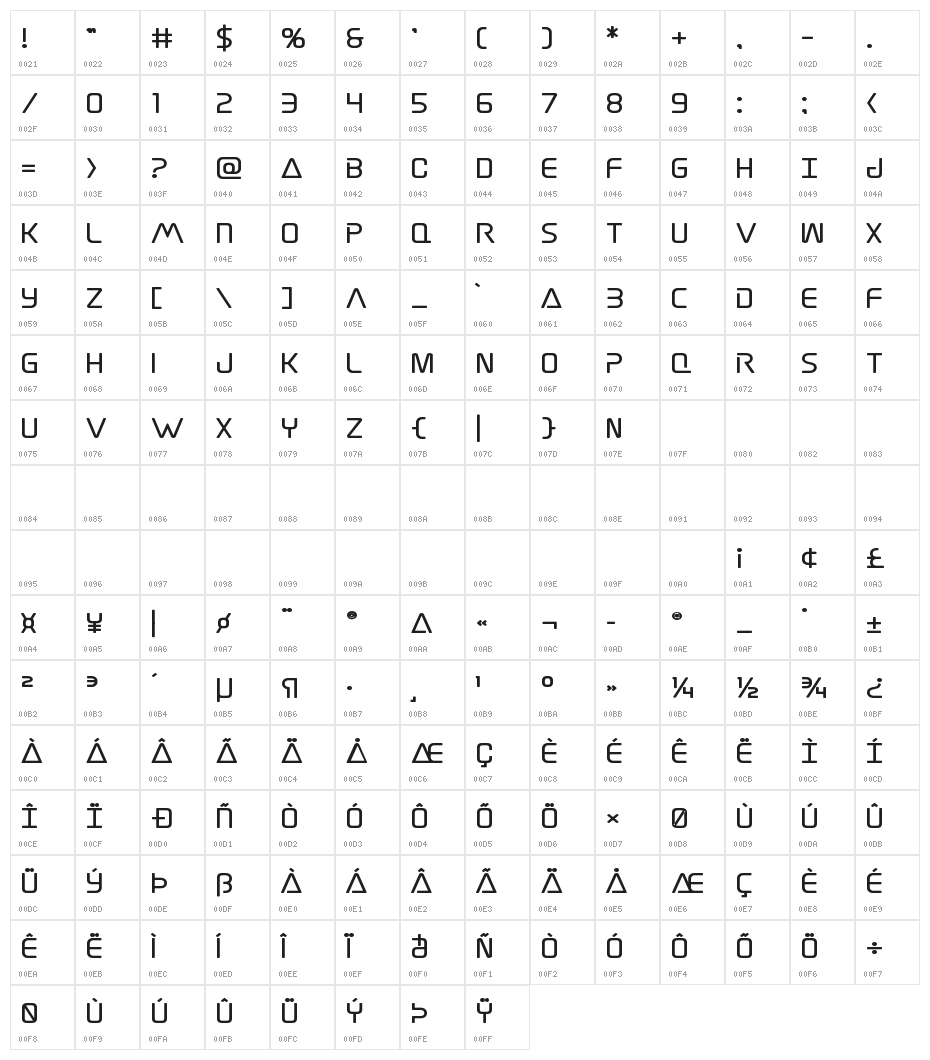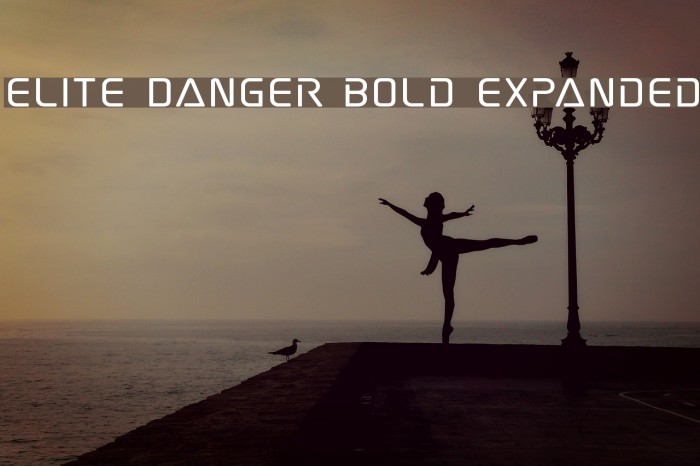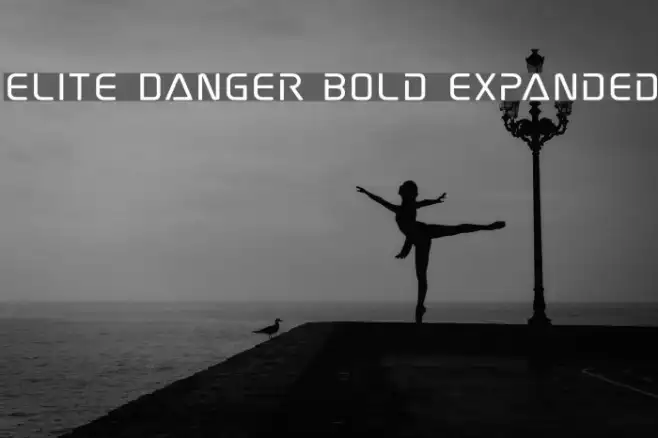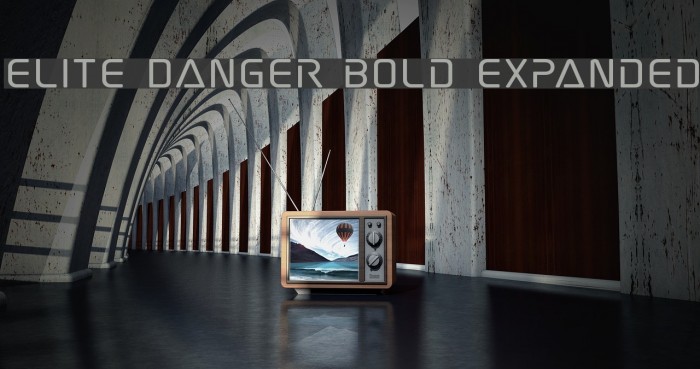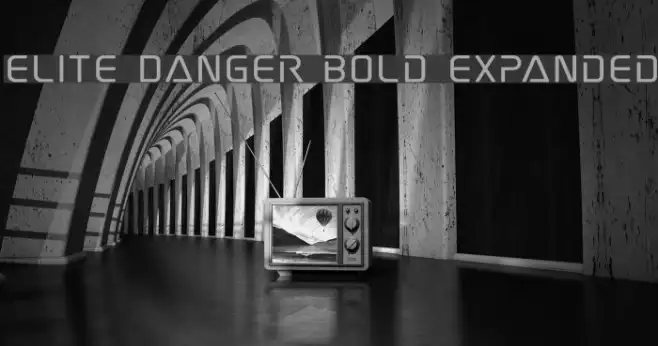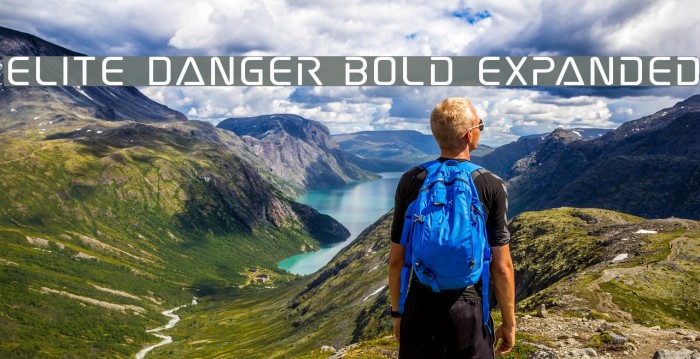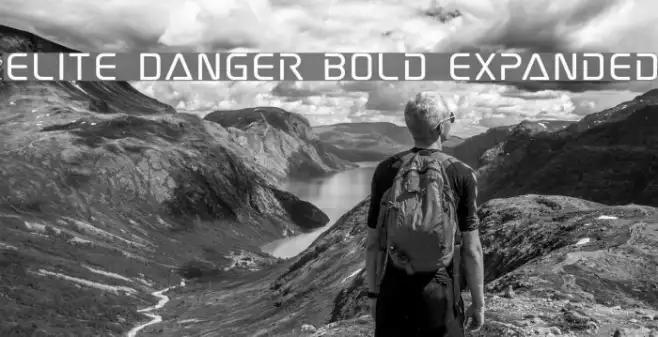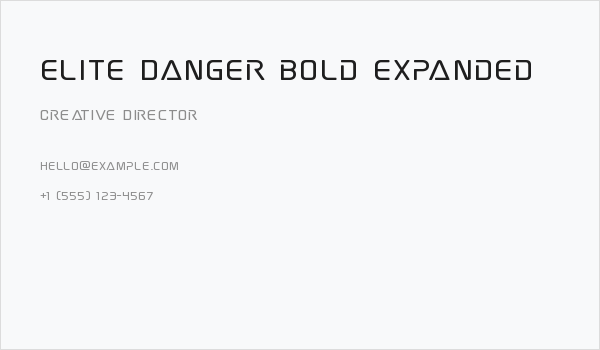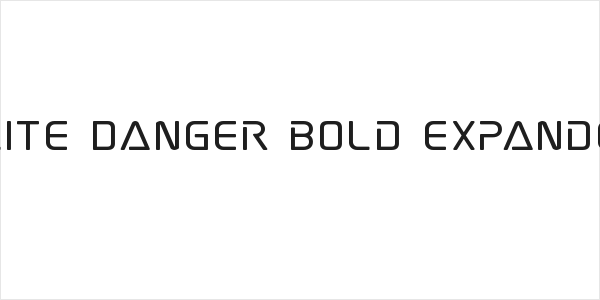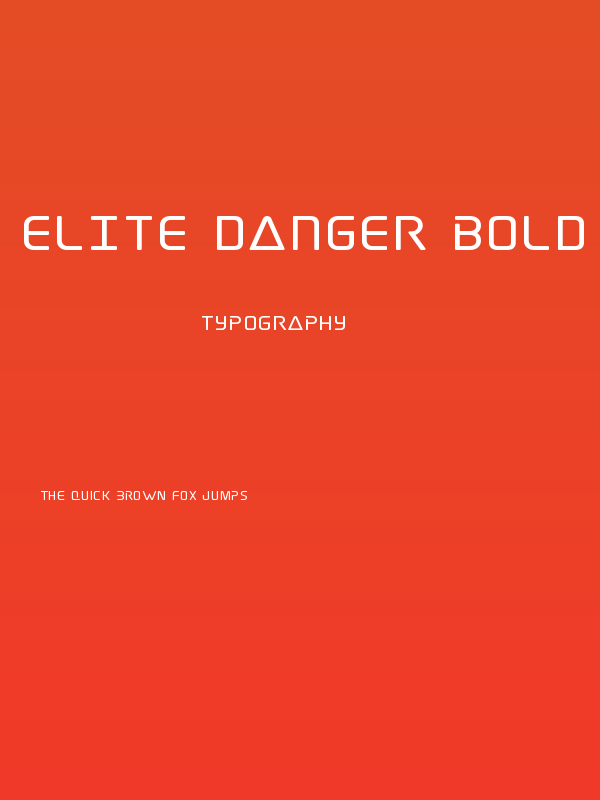
Elite Danger Bold Expanded Font
Elite Danger Bold Expanded Description
This font features a futuristic and geometric design, characterized by its bold and expanded letterforms. The uppercase and lowercase letters exhibit a consistent style with rounded edges and a uniform stroke width, giving it a sleek and modern appearance. The numerals and special characters maintain the same design ethos, ensuring a cohesive look across all glyphs. The font's structure is clean and minimalistic, making it suitable for projects that require a contemporary and tech-savvy aesthetic.
| Proposed Projects | Ideal for technology branding, sci-fi themed projects, video game interfaces, and modern advertising campaigns. |